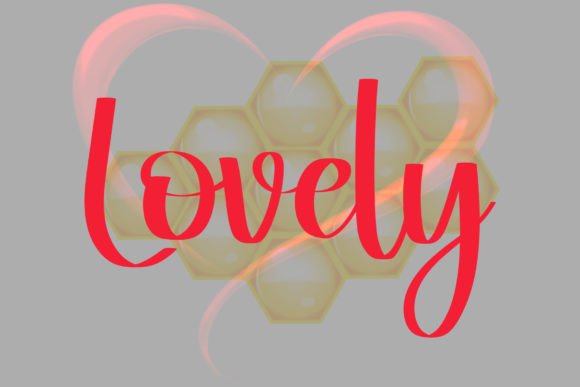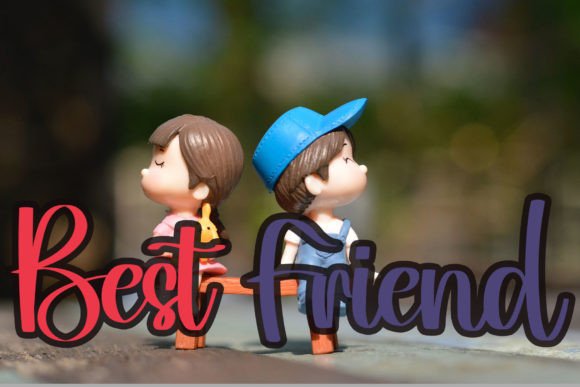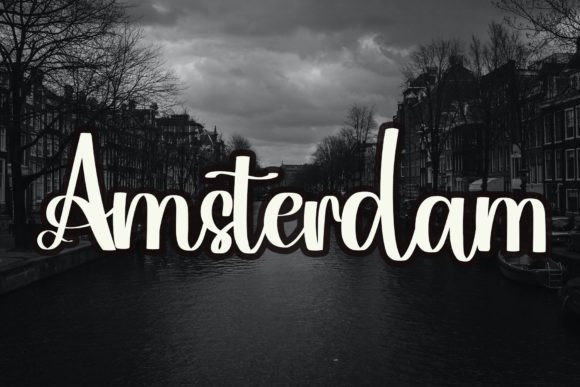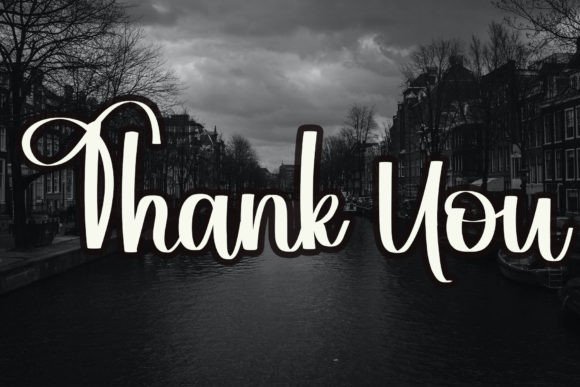
The Sweet Spot: Discovering the Elegance of Beehive Font
I still remember the design project that led me to discover the Beehive font. I was working on a luxury brand’s brochure, and my client requested a font that exuded elegance and sophistication. As I scrolled through my font library, I stumbled upon Beehive – a trendy handwritten font that instantly caught my attention. Its contemporary atmosphere and impeccable form, inspired by timeless classic calligraphy, made it the perfect fit for the project. In this article, I’ll share my experience with Beehive font, its features, and how to make the most of it in your design projects.
An Honest Review of Beehive Font
What I Love About Beehive Font ✨
- 💫 Elegant and sophisticated: Beehive font adds a touch of luxury to any design project.
- ✅ Versatile: Suitable for various design projects, from branding to packaging, and even digital media.
- ✨ Contemporary atmosphere: The font’s modern feel makes it perfect for designs that require a fresh and trendy look.
- 💯 Impeccable form: The font’s classic calligraphy inspiration ensures that it remains legible and visually appealing.
While Beehive font is an excellent choice for many design projects, there are a few things to keep in mind:
- ⚠️ Limited use in body text: Due to its elegant and cursive nature, Beehive font may not be the best choice for lengthy body text.
- 🤔 Requires careful pairing: Beehive font can be quite dominant, so it’s essential to choose complementary fonts that don’t overpower it.
The Story Behind Beehive Font
Beehive font was designed with the goal of creating a modern, elegant, and sophisticated handwritten font. Inspired by classic calligraphy, the designer aimed to create a font that would add a touch of luxury to any design project. The result is a font that exudes elegance and refinement, making it perfect for high-end designs and luxury brands.
Q: What type of designs is Beehive font best suited for?
A: Beehive font is ideal for luxury brands, high-end designs, and creative projects that require an elegant and sophisticated look.
Q: Can I use Beehive font for body text?
A: While Beehive font can be used for body text, it’s recommended to use it for headings and titles due to its elegant and cursive nature.
Q: Is Beehive font suitable for digital media?
A: Yes, Beehive font is suitable for digital media, including social media graphics, website headers, and email marketing campaigns.